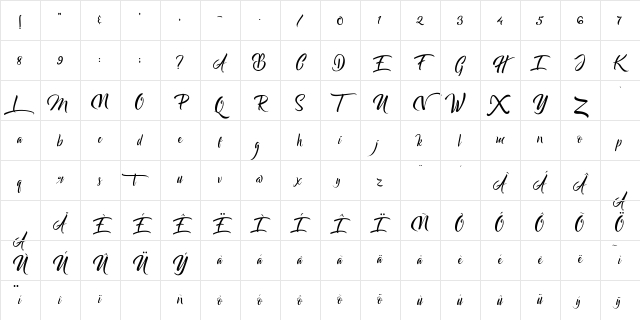
Bareken Regular Free Font
Bareken Regular
Foundry: thirtypath
Designer: thirtypath
Design Context for Bareken
Bareken is a composed and adaptable typeface that performs quietly and consistently across a wide range of design contexts.